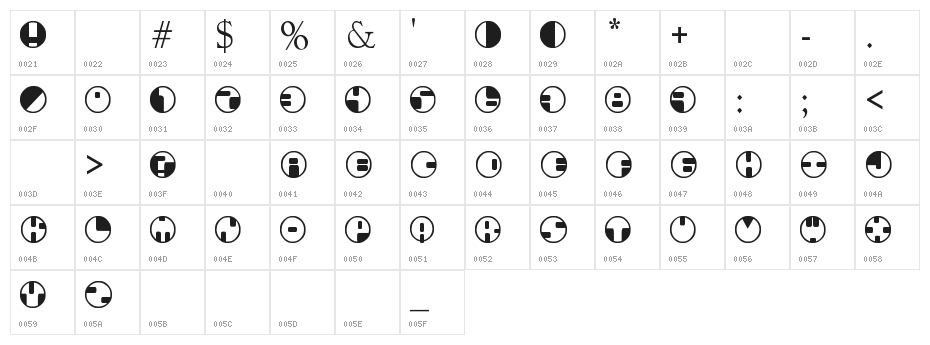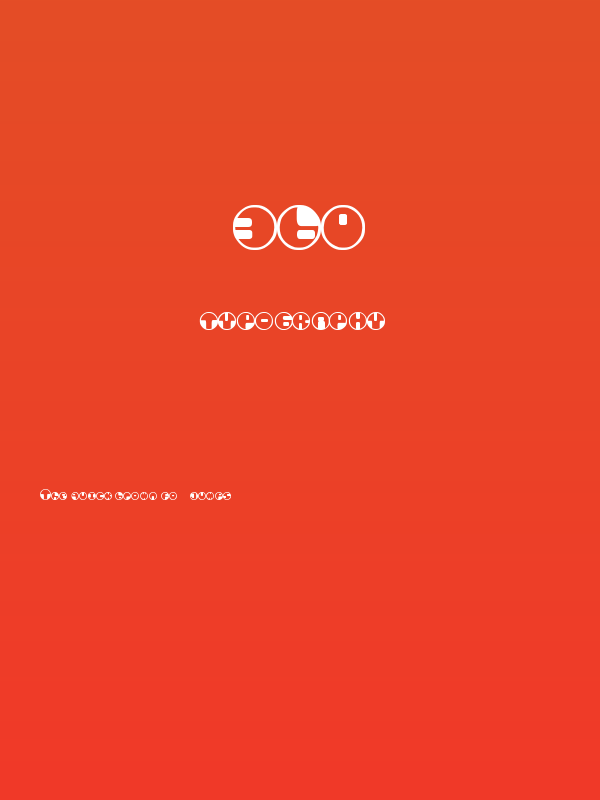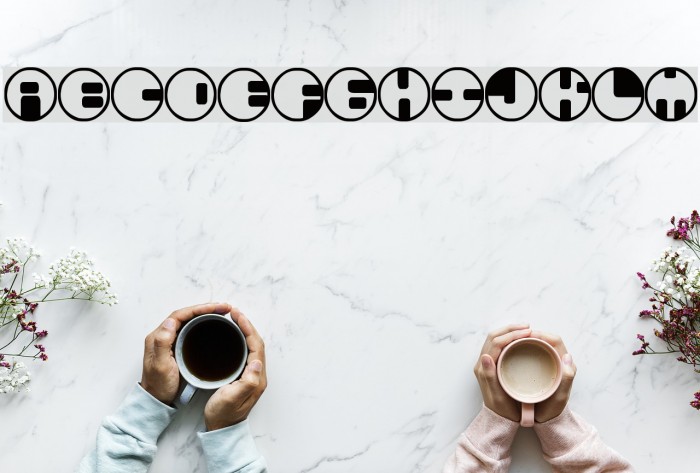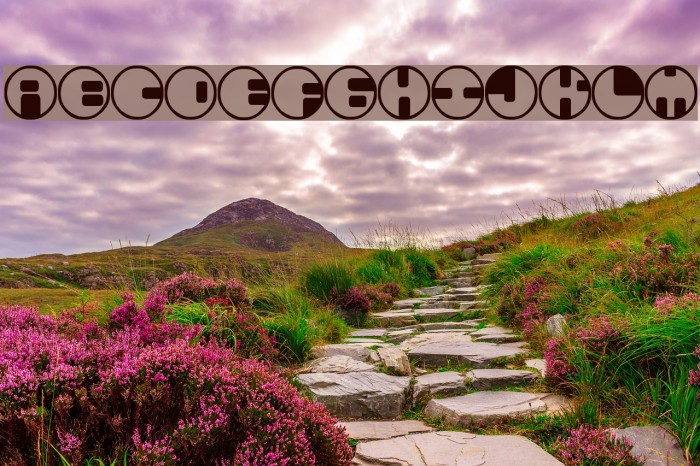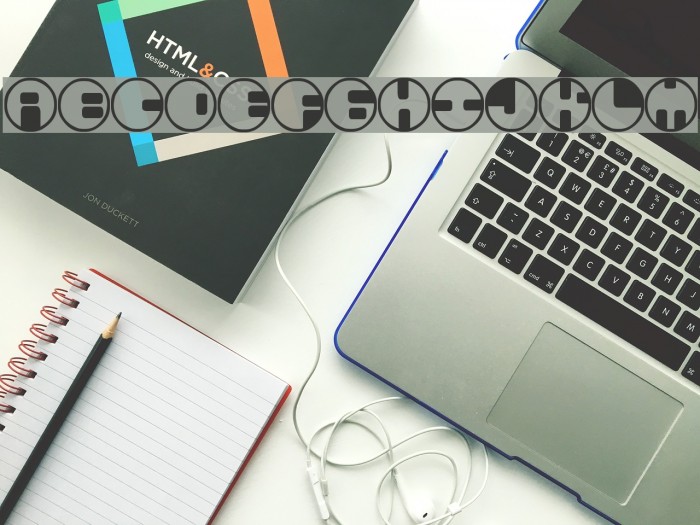
360 Font
360 Description
This font features a unique and modern design with each character enclosed within a circle, creating a futuristic and geometric appearance. The letters and numbers are crafted with bold, solid strokes that contrast sharply with the negative space, enhancing readability while maintaining an artistic flair. The font's circular enclosures give it a distinct, cohesive look, making it ideal for projects that require a standout, avant-garde aesthetic. The special characters maintain the same circular theme, ensuring consistency across all glyphs.
| Use Case | Logos, Headlines, Posters |
| Proposed Projects | Ideal for logo design, branding, futuristic themes, and digital art projects. |